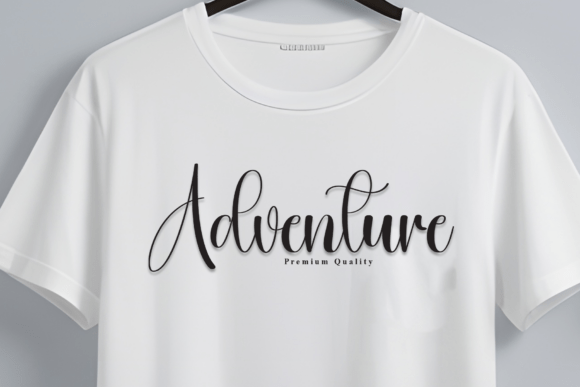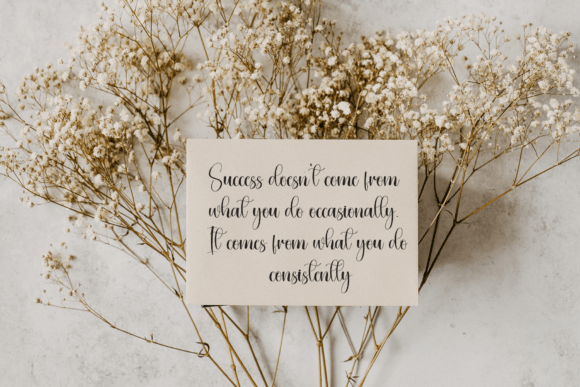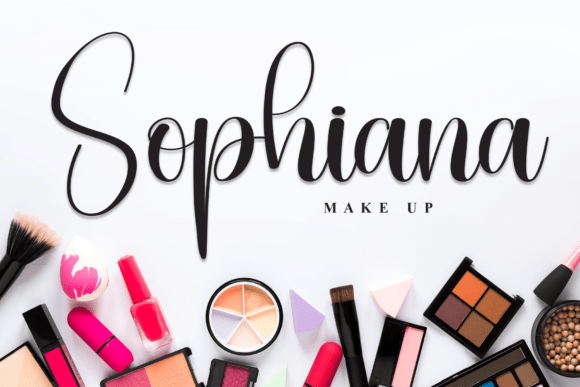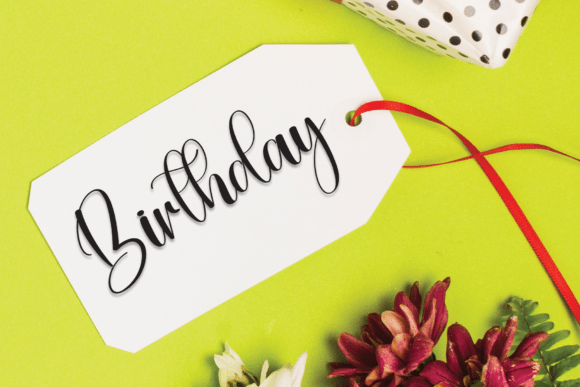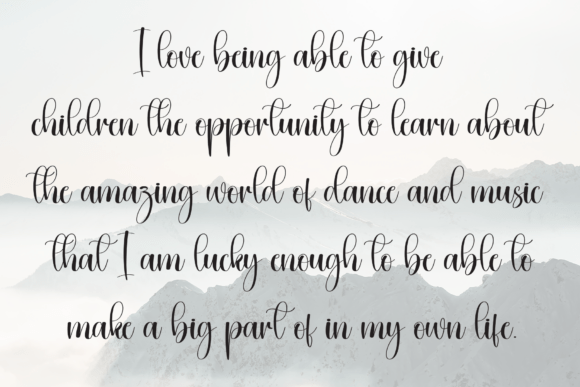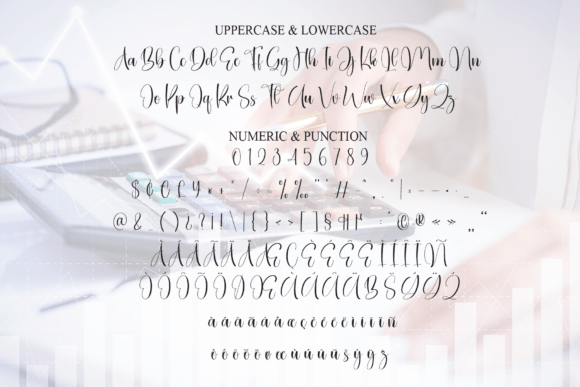
Introducing Derivative Font: Elevate Your Creative Projects with Elegance and Playfulness
In the world of typography, a font can make or break the aesthetic of a design project. For crafters, designers, and DIY enthusiasts, finding the perfect font that combines elegance with a personal touch can be a daunting task. This is where Derivative Font comes into play – a beautifully flowing script font that is specifically designed to add a touch of sophistication and whimsy to your creative projects.
What is Derivative Font?
Derivative Font is a stunning script font that boasts elegant curves and a handcrafted feel. Its unique design makes it an ideal choice for a wide range of applications, including DIY-themed designs, handmade product branding, invitations, scrapbooking, and more. Whether you’re looking to add a personal touch to your craft projects or create a distinctive brand identity, Derivative Font is the perfect solution.
Key Features of Derivative Font
• Elegant Curves: Derivative Font features beautifully flowing curves that give your text a sophisticated and refined look.
• Handcrafted Feel: The font’s handcrafted feel adds a personal touch to your designs, making them stand out from the crowd.
• Playful and Stylish: With its perfect blend of playfulness and style, Derivative Font is ideal for designers and crafters who want to add a touch of whimsy to their work.
• Versatile: This font is versatile and can be used for a wide range of projects, from DIY designs to professional branding.
Derivative Font is designed to help you elevate your creative projects with its unique and stylish design. Here are some of the many ways you can use this font:
• DIY-themed Designs: Add a personal touch to your DIY projects, such as handmade crafts, woodworking, or sewing.
• Handmade Product Branding: Create a distinctive brand identity for your handmade products, such as jewelry, candles, or soaps.
• Invitations: Use Derivative Font to create beautiful and elegant invitations for special occasions, such as weddings, birthdays, or baby showers.
• Scrapbooking: Add a touch of whimsy and personality to your scrapbooking projects with this stylish font.
Why Choose Derivative Font?
With so many fonts available, why choose Derivative Font? Here are just a few reasons why this font stands out:
• Unique Design: Derivative Font features a unique and stylish design that will set your projects apart from the rest.
• High-Quality: Derivative Font is a high-quality font that is designed to produce crisp and clear text.
Tips for Using Derivative Font
Here are some tips for getting the most out of Derivative Font:
• Experiment with Sizes: Try using Derivative Font in different sizes to create visual interest and hierarchy in your designs.
• Combine with Other Fonts: Combine Derivative Font with other fonts to create a unique and stylish look.
• Use for Headings and Titles: Use Derivative Font for headings and titles to add a touch of elegance and sophistication to your designs.
In conclusion, Derivative Font is a beautifully flowing script font that is perfect for creative projects. With its elegant curves, handcrafted feel, and playful style, this font is ideal for designers and crafters who want to add a personal and artistic touch to their work. Whether you’re creating DIY-themed designs, handmade product branding, invitations, or scrapbooking projects, Derivative Font is the perfect choice. So why wait? Download Derivative Font today and elevate your creative projects with elegance and playfulness!